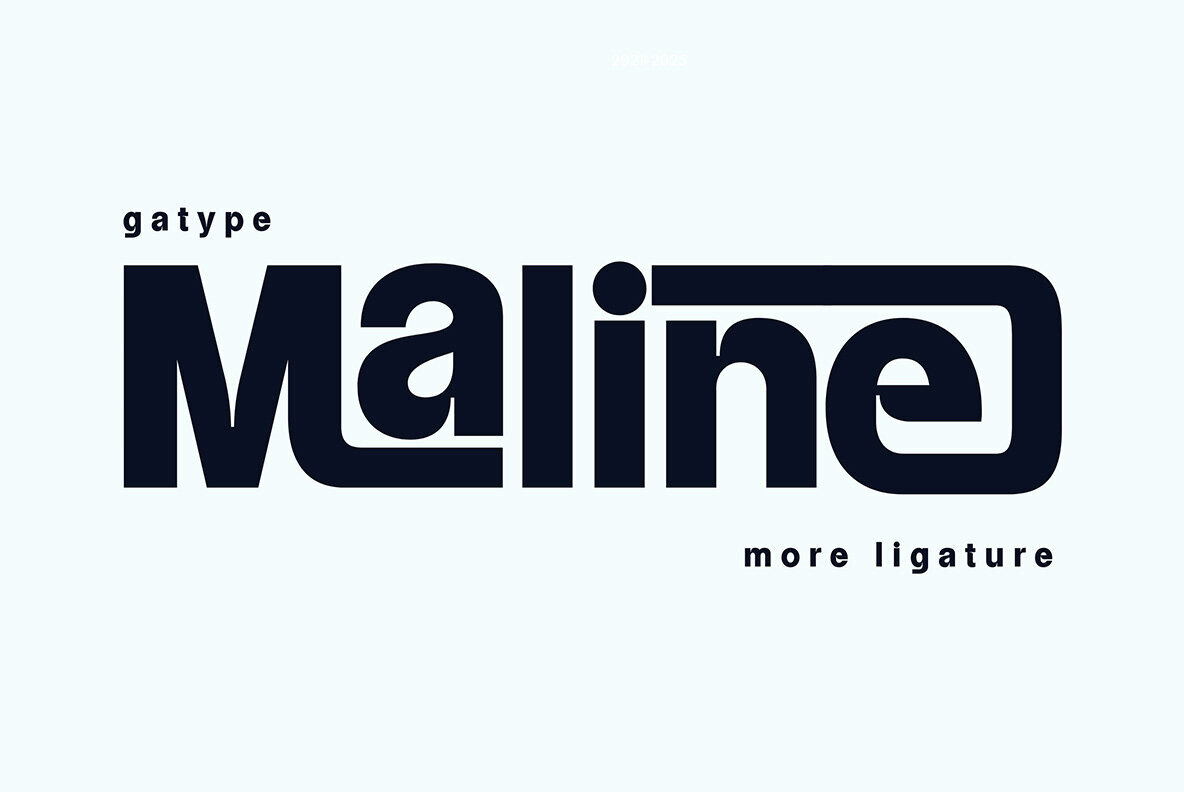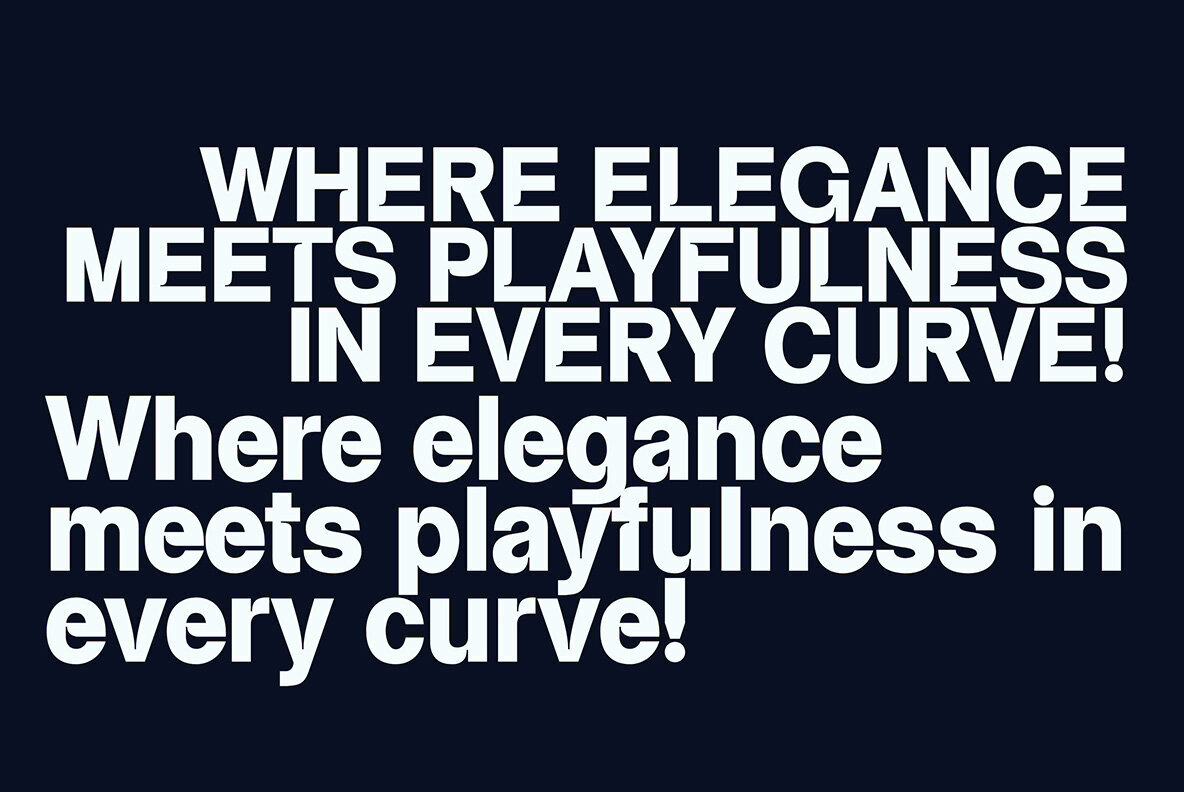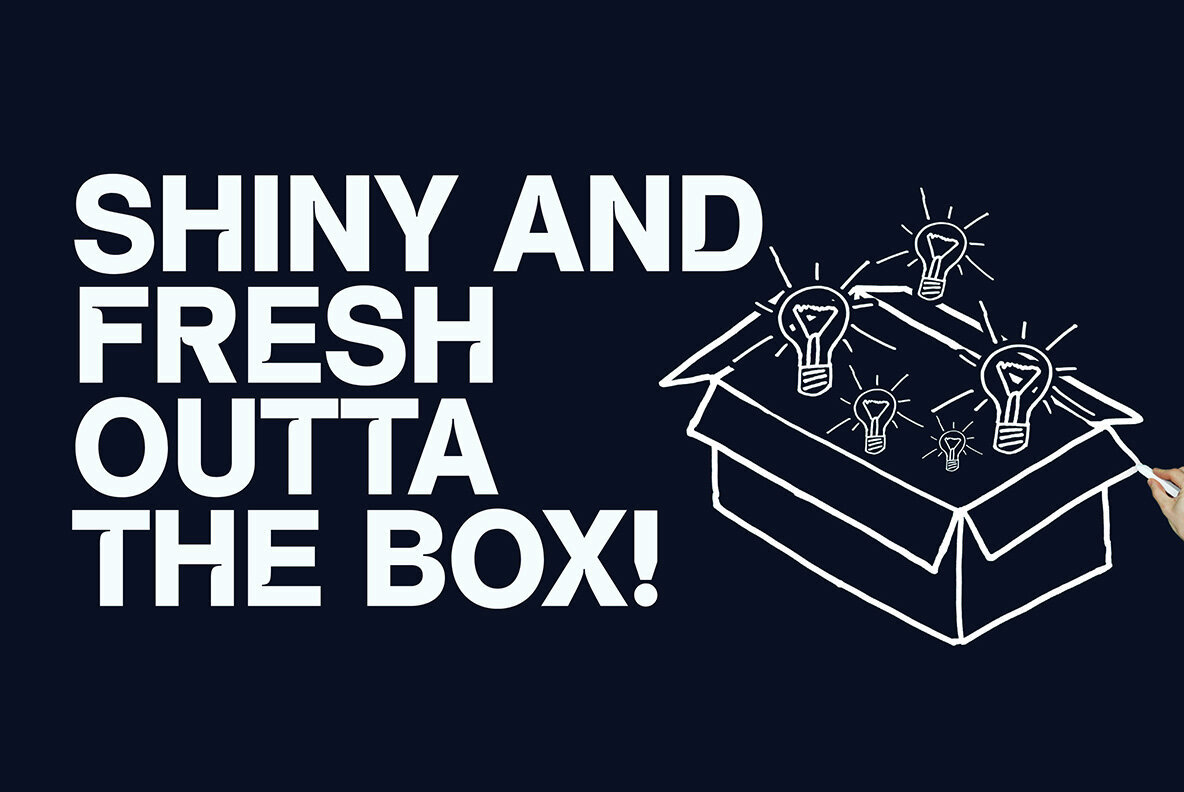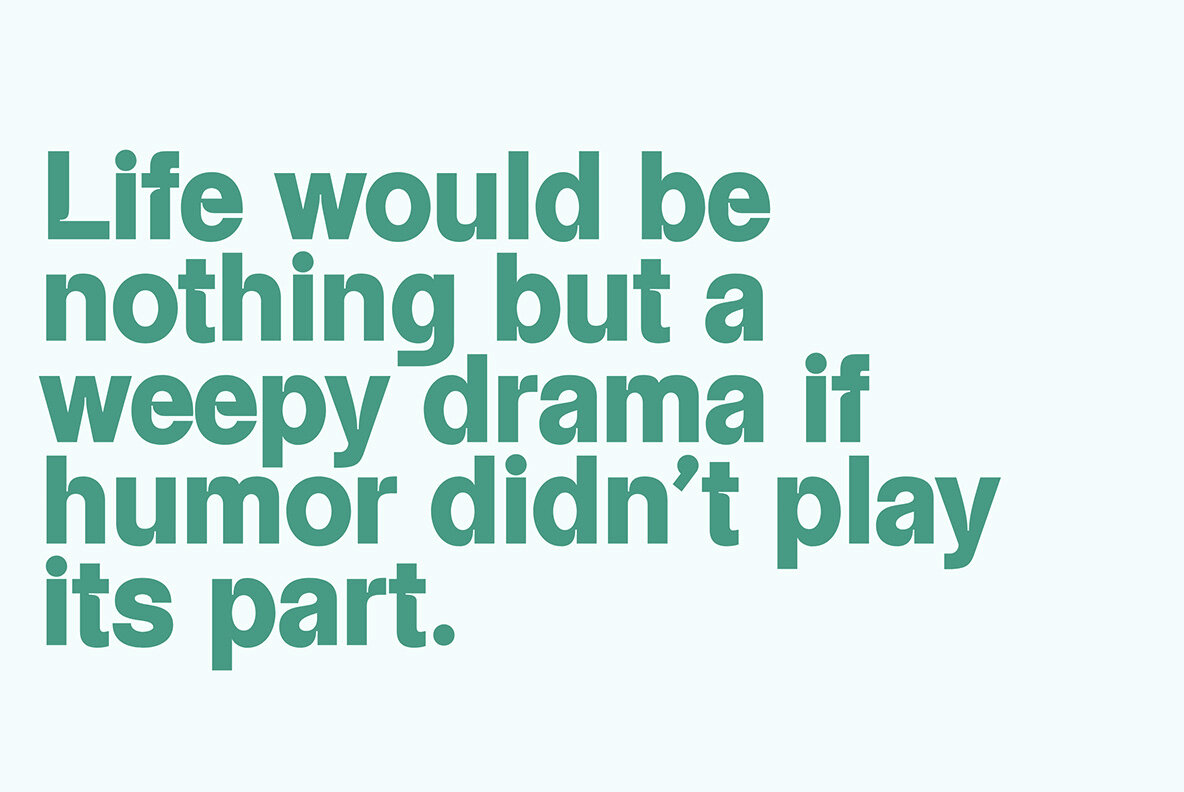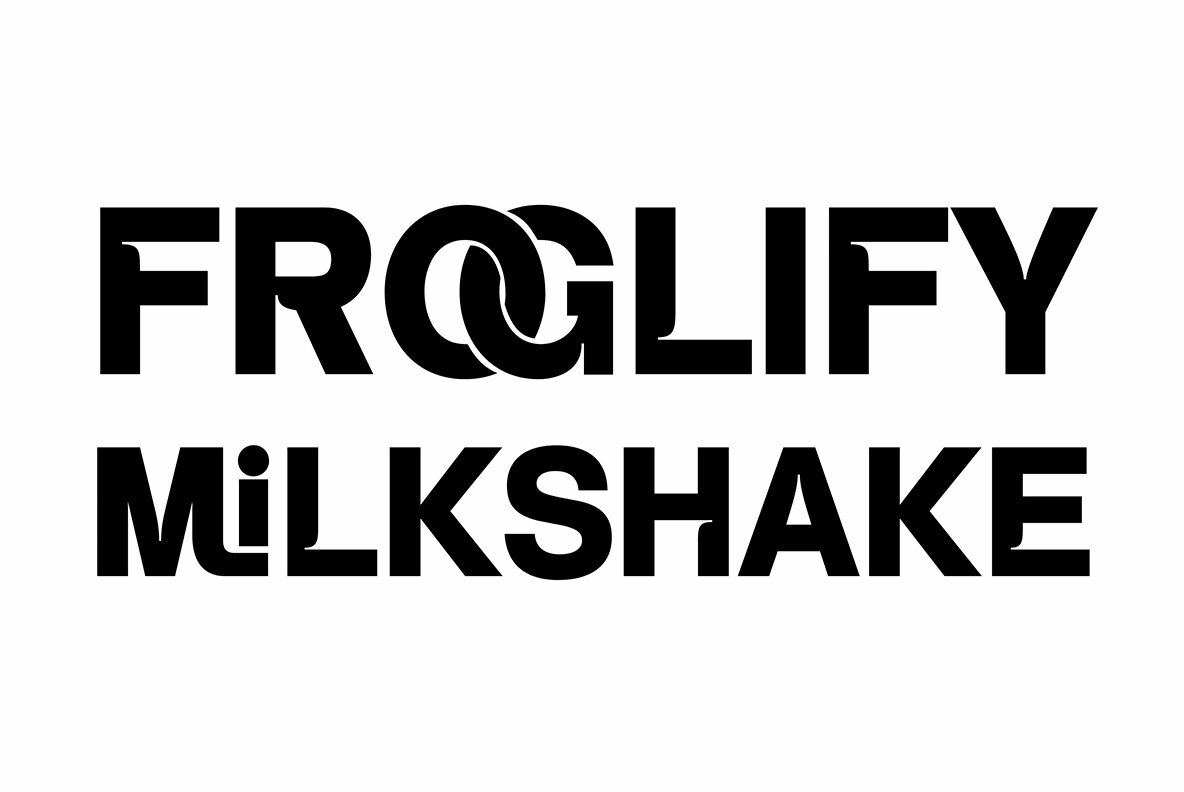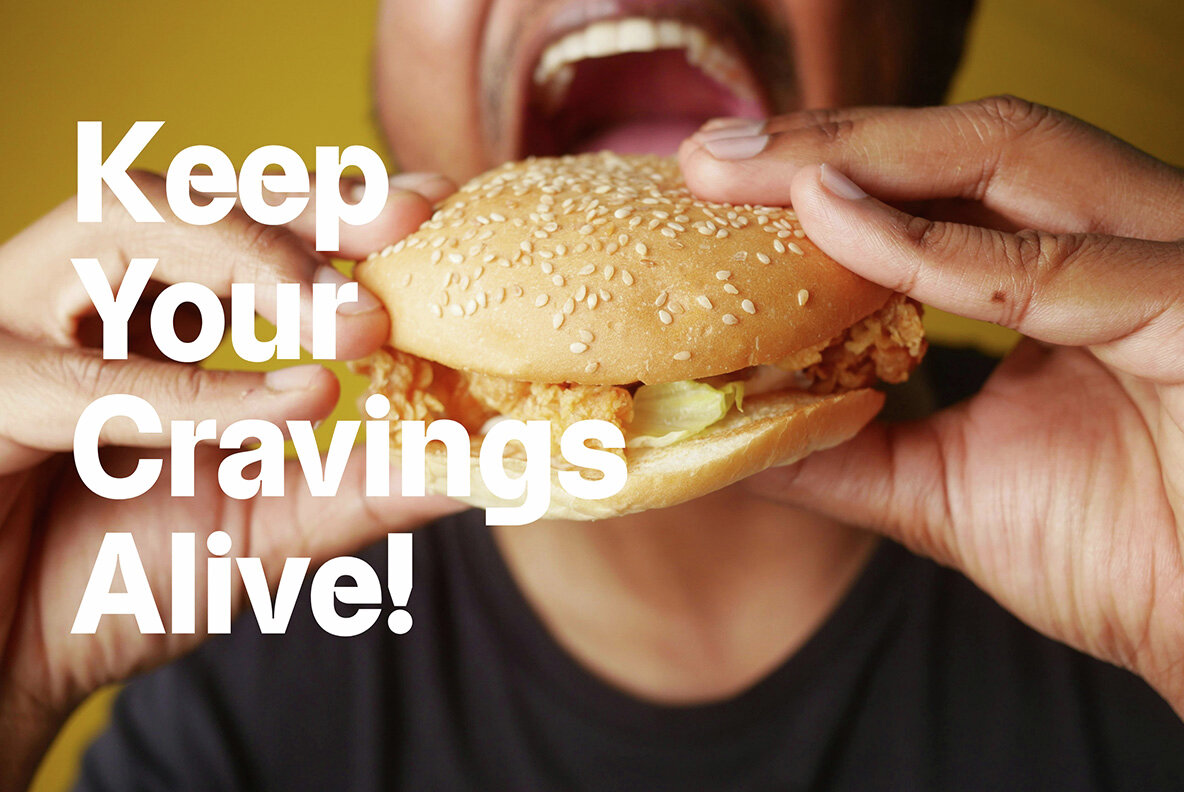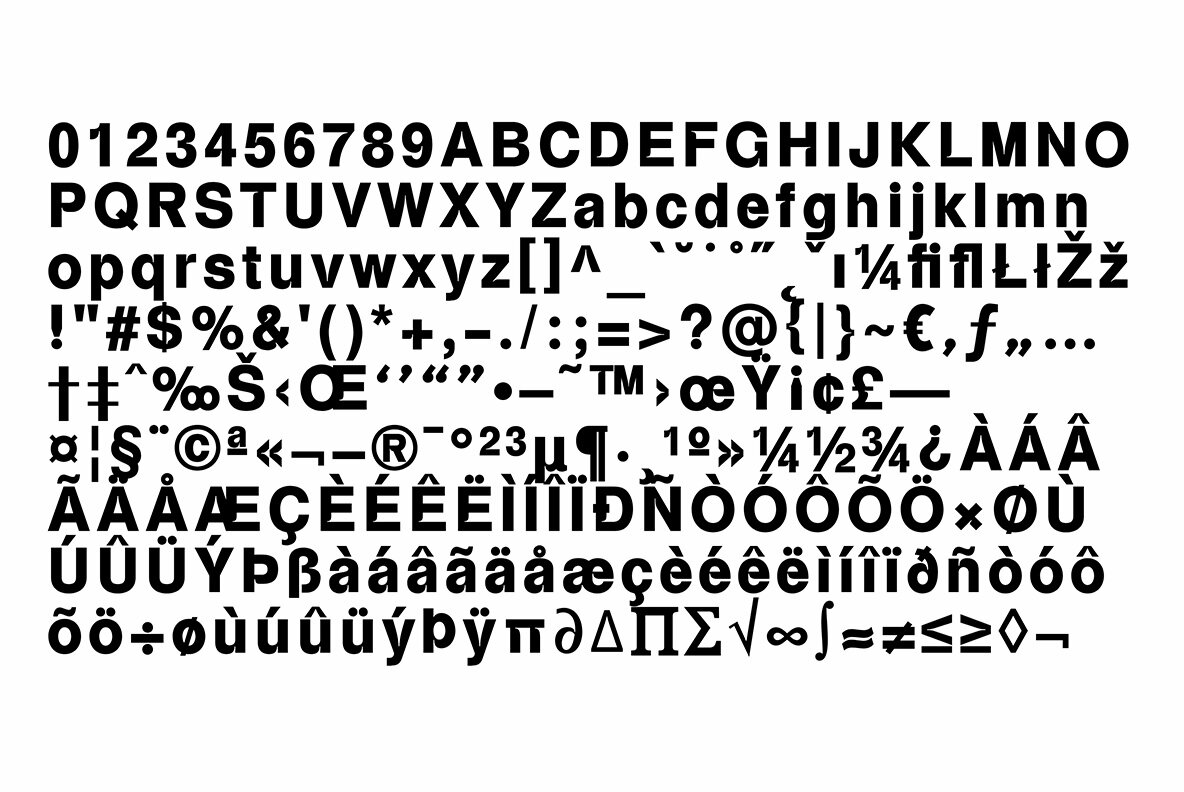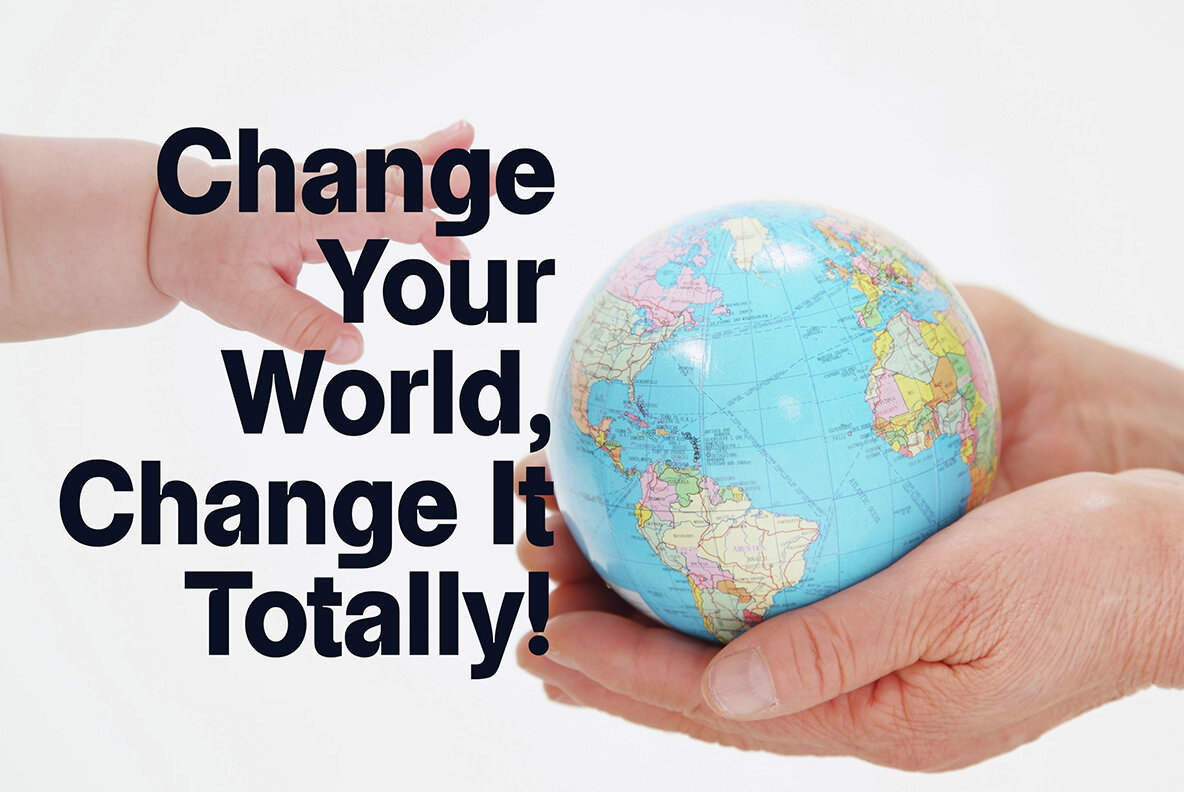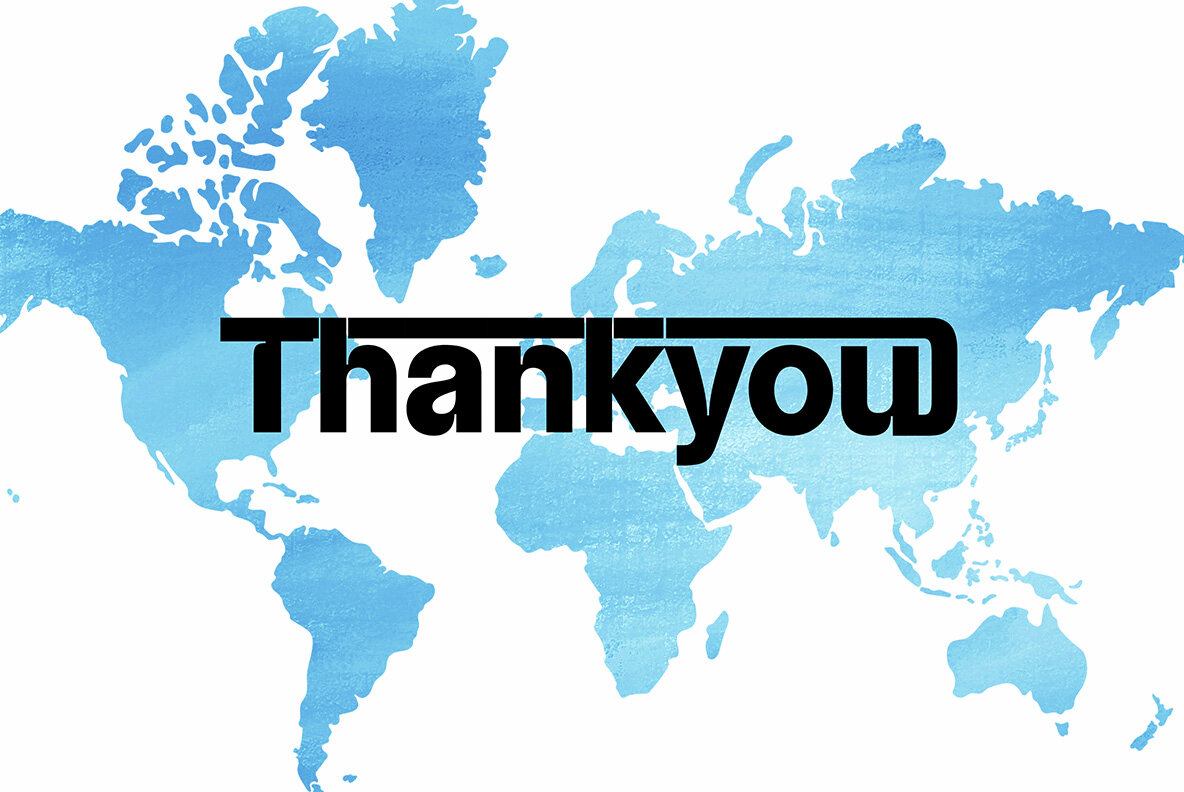
Maline Font
Maline
Maline offers a harmonious blend of clean geometric structure and graceful organic curves, creating a typeface that stands out for its refined simplicity. Each letter is crafted with balance and intention, lending a sense of confident beauty to every design. This modern display font is designed to express both freshness and sophistication, making it suitable for a wide range of contemporary projects. Ideal for lifestyle branding, editorial layouts, premium packaging, and digital design, Maline provides a polished voice that feels modern yet welcoming. Its timeless appeal and subtle details make it well-suited for designers seeking clarity and style without unnecessary embellishment.Maline – Minimal Elegance in a Modern Display Typeface